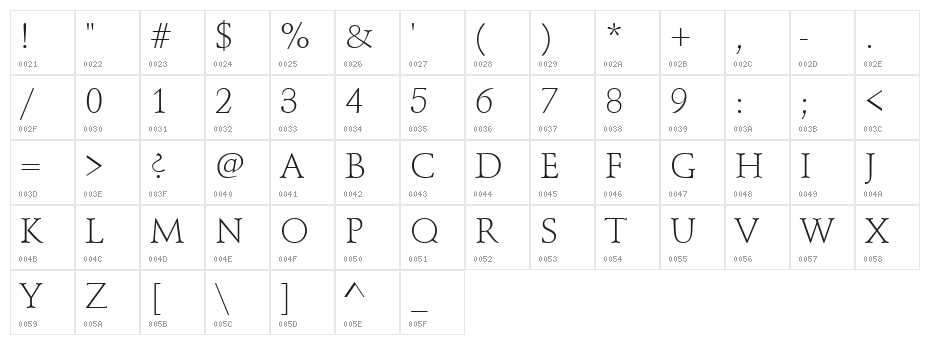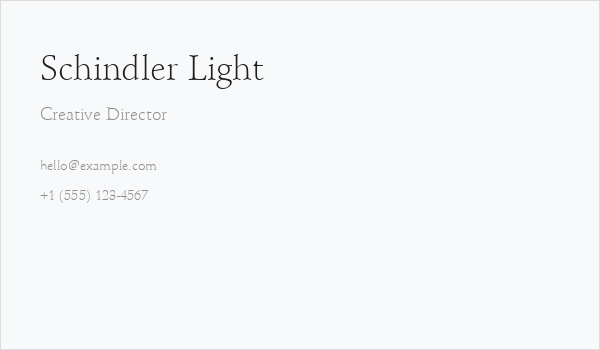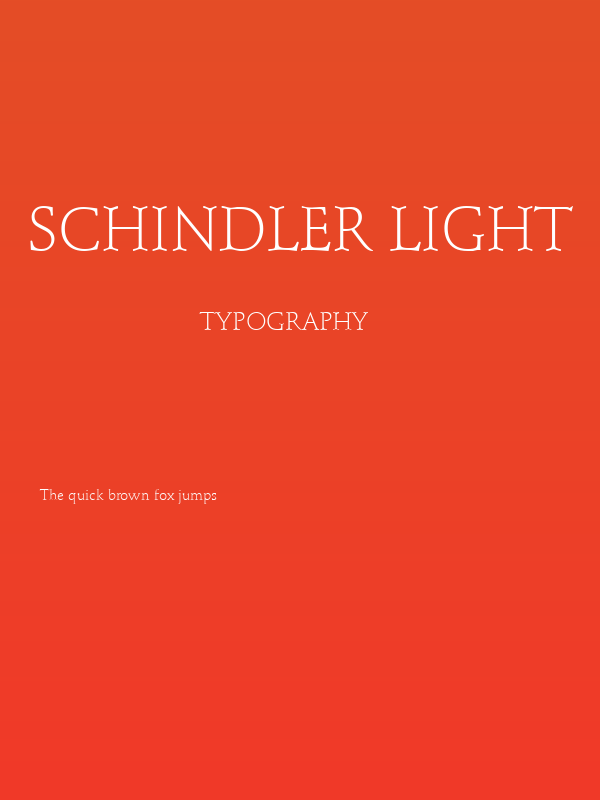
Schindler Light Font
Schindler Light Description
This font features a classic serif design with elegant, thin strokes and a refined appearance. The characters exhibit a harmonious balance between traditional serif elements and modern aesthetics. The uppercase letters are tall and stately, while the lowercase letters maintain a consistent flow with slightly rounded edges. The numerals are clear and legible, complementing the overall sophisticated style. Special characters are well-integrated, maintaining the font's cohesive look. This font is versatile and suitable for a variety of applications where a touch of elegance is desired.
| Proposed Projects | Ideal for editorial design, book covers, formal invitations, and branding projects that require a touch of sophistication. |